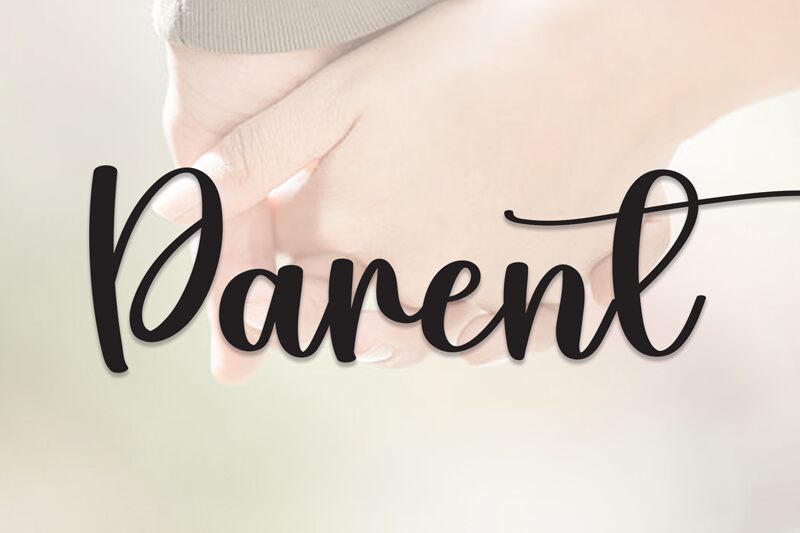
Parent
Parent, a delightful handwritten font by Scratchones, brings a touch of whimsy to your projects. With its fluid strokes and charming imperfections, this font adds a playful and personal feel to any design.
Whether you're creating invitations for a children's party, designing greeting cards filled with love and affection, or crafting heartfelt quotes for social media graphics, Parent is the perfect choice. Its versatility allows it to shine in both print and digital mediums, making it an excellent companion for wedding stationery, branding materials, book covers, and more.
Let Parent bring warmth and character to your creative endeavors.
The latest style letters are perfect for wall displays, wedding invitations, social media post logos, advertisements, product packaging, product designs, labels, photography, watermarks, invitations, stationery, and any project that requires taste handwriting.
Whether you're creating invitations for a children's party, designing greeting cards filled with love and affection, or crafting heartfelt quotes for social media graphics, Parent is the perfect choice. Its versatility allows it to shine in both print and digital mediums, making it an excellent companion for wedding stationery, branding materials, book covers, and more.
Let Parent bring warmth and character to your creative endeavors.
The latest style letters are perfect for wall displays, wedding invitations, social media post logos, advertisements, product packaging, product designs, labels, photography, watermarks, invitations, stationery, and any project that requires taste handwriting.